Great graphic design is powered by great font selection. But picking great fonts is a challenge most people. This is especially true on platforms like, Canva, where some of the most common fonts are not available in either the Free Version of Canva or Canva Pro. In this font tutorial, our team of design experts will cover the best fonts like Garamond in Canva.
Garamond is a classic and timeless serif font with a rich history, that is commonly used in many graphic design tools, including Canva:
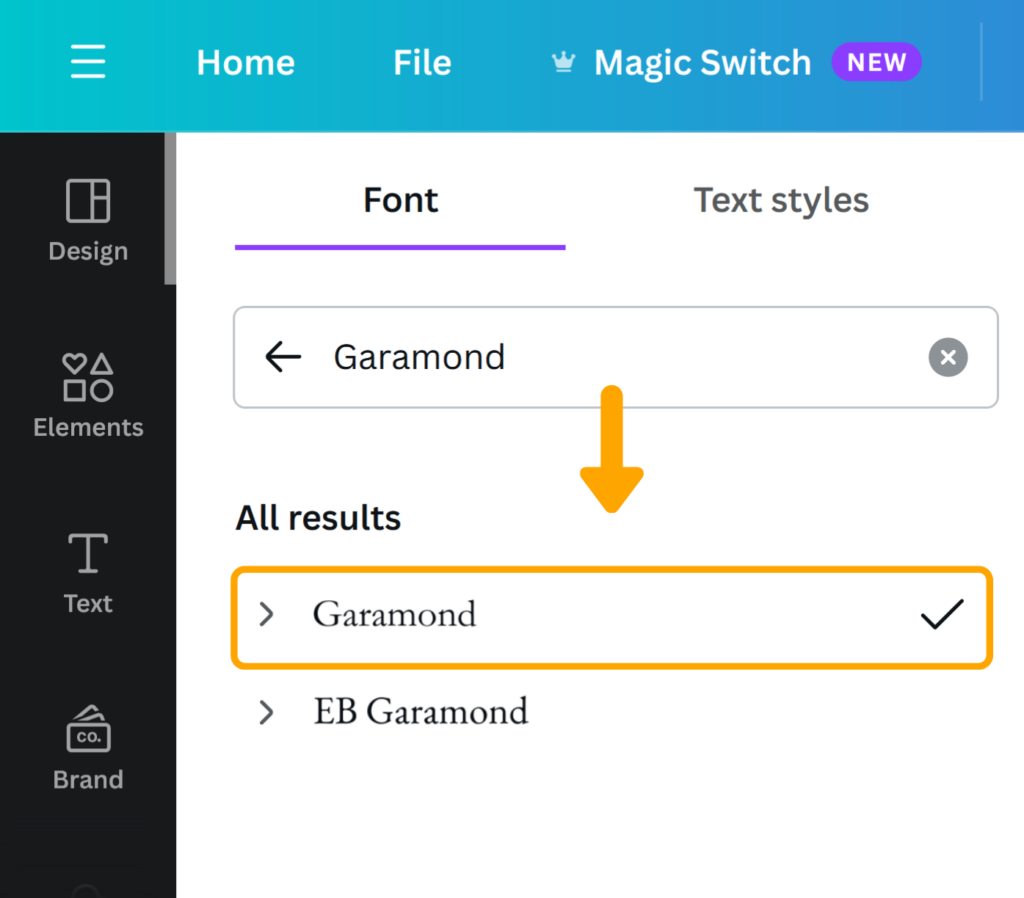
However, if you are looking for a similar yet unique font, Canva does offer a number of alternative fonts that are similar to Garamond in style.
Best Fonts Like Garamond in Canva
1. Avenir
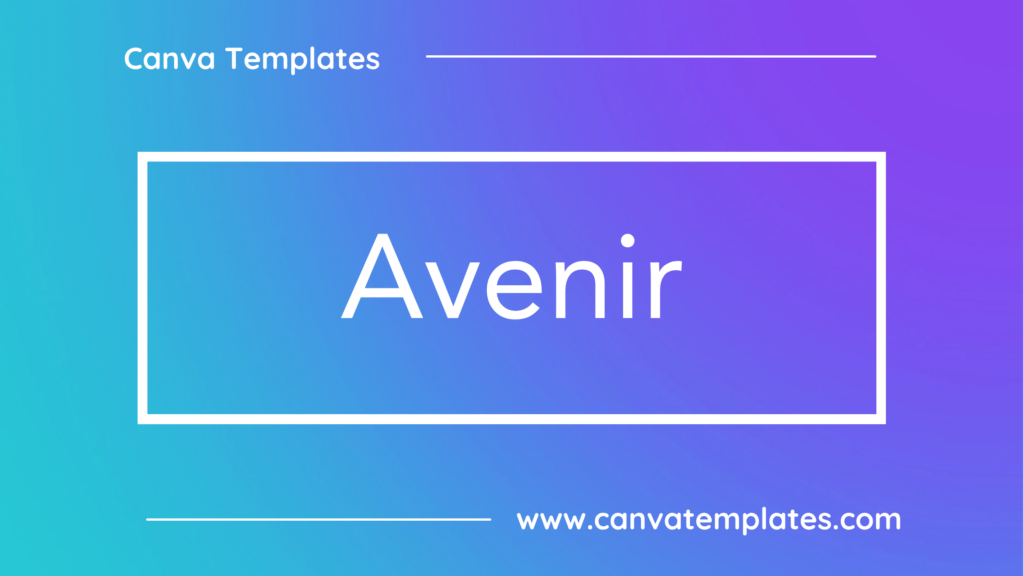
Why it’s a good alternative: Avenir is a sophisticated alternative to Garamond, featuring a clean and modern design that offers a refined, timeless appearance that complements Garamond’s classical elegance and legibility.
2. Proxima Nova
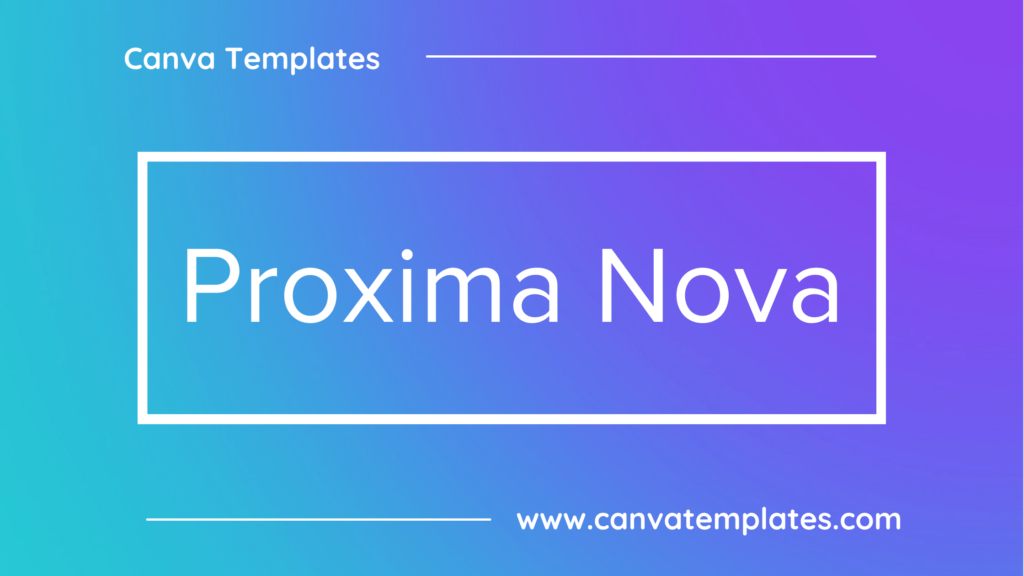
Why it’s a good alternative: Proxima Nova combines versatility and legibility, making it a practical choice to replace Garamond with a contemporary and adaptable design that maintains clarity while introducing a modern twist.
3. Raleway
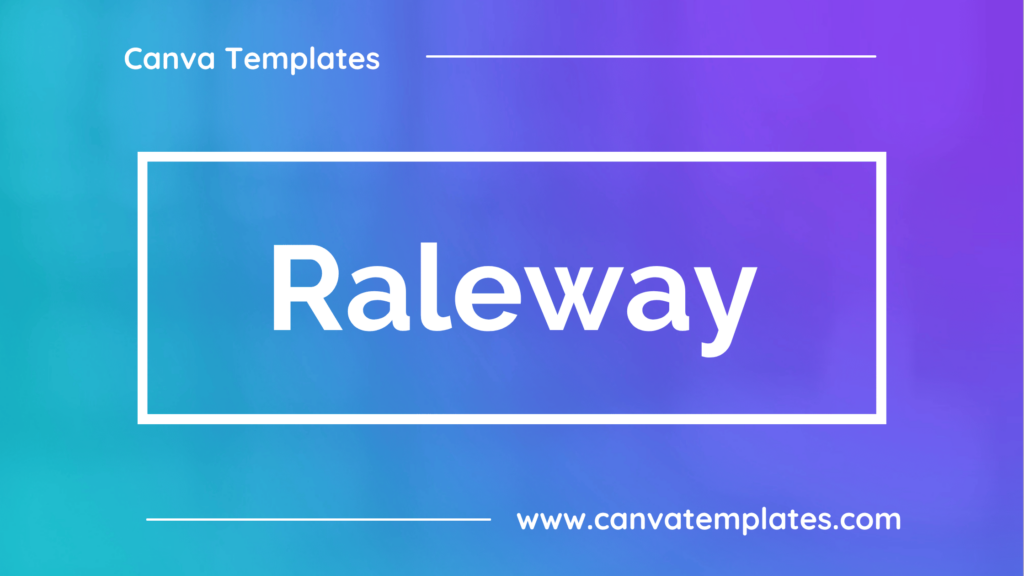
Why it’s a good alternative: Raleway’s high-contrast letterforms provide a distinctive alternative, adding sophistication and modernity while retaining the readability characteristic of Garamond.
4. Open Sans
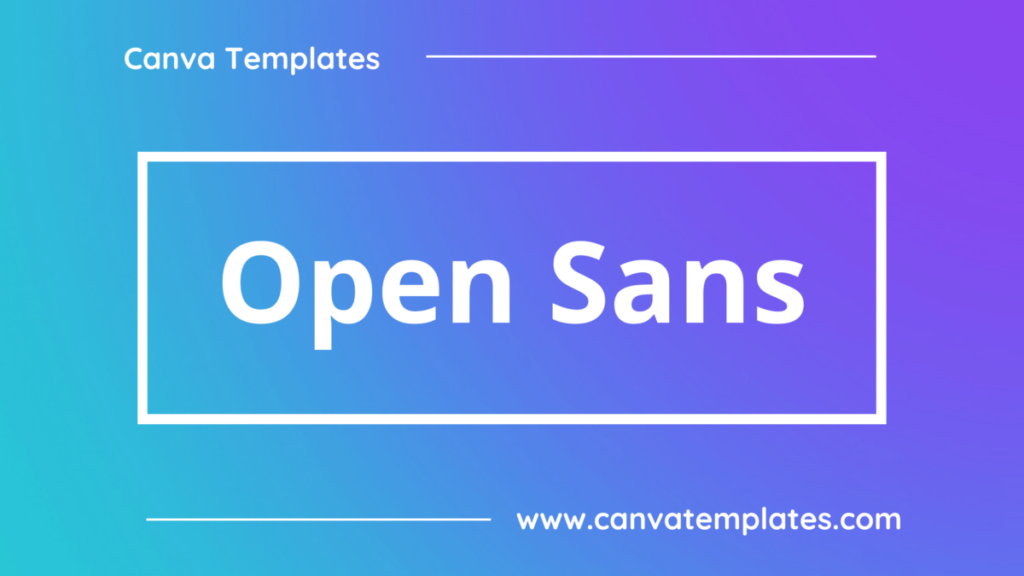
Why it’s a good alternative: Open Sans is a simpler and more approachable option, emphasizing readability and a modern look, which differs from Garamond’s more traditional and intricate style.
5. Lato
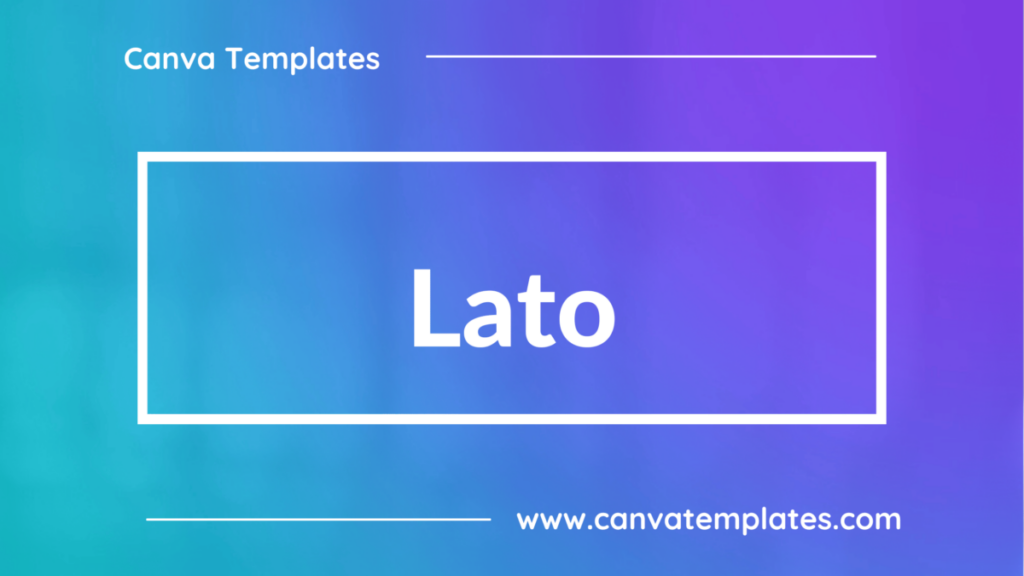
Why it’s a good alternative: Lato’s rounded letterforms create a softer and friendlier alternative, offering a warmer and more inviting appearance compared to Garamond.
6. Montserrat
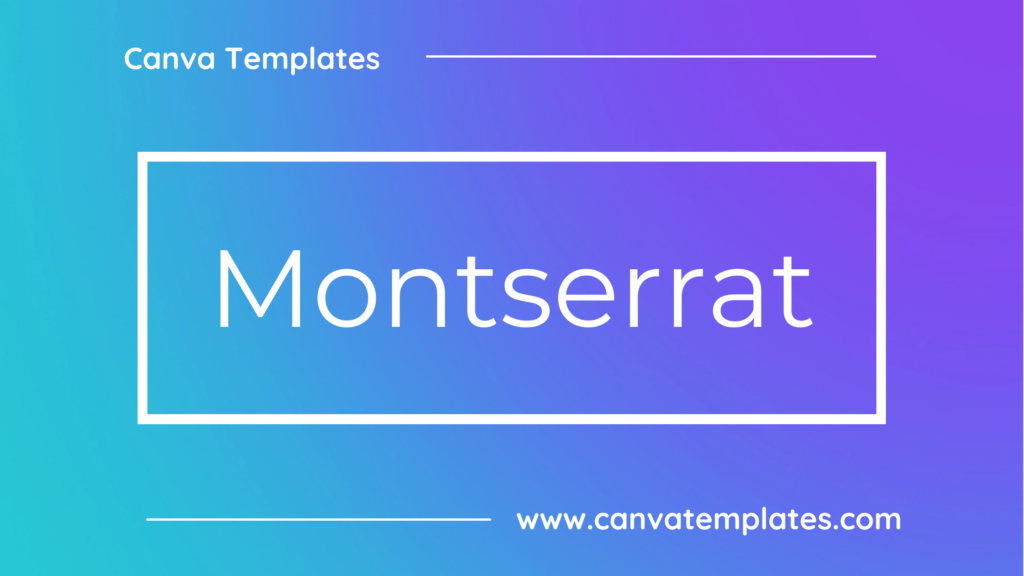
Why it’s a good alternative: Montserrat’s geometric and streamlined design offers a sleek and modern replacement for Garamond, particularly suitable for minimalistic and clean design projects.
7. Roboto
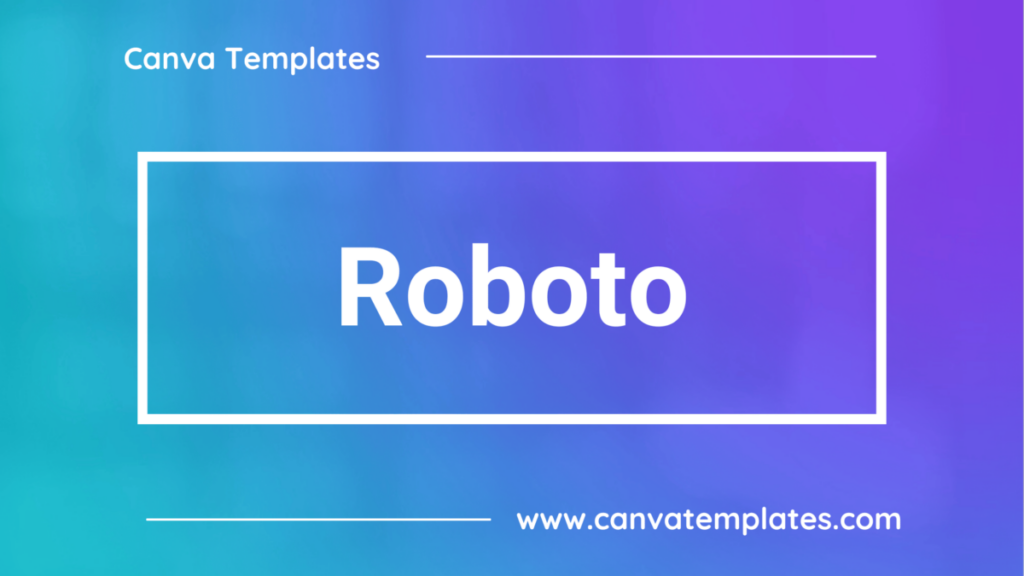
Why it’s a good alternative: Roboto’s versatility and legibility make it a functional alternative to Garamond, adapting well to various design contexts while maintaining clarity and a contemporary look.
8. PT Sans
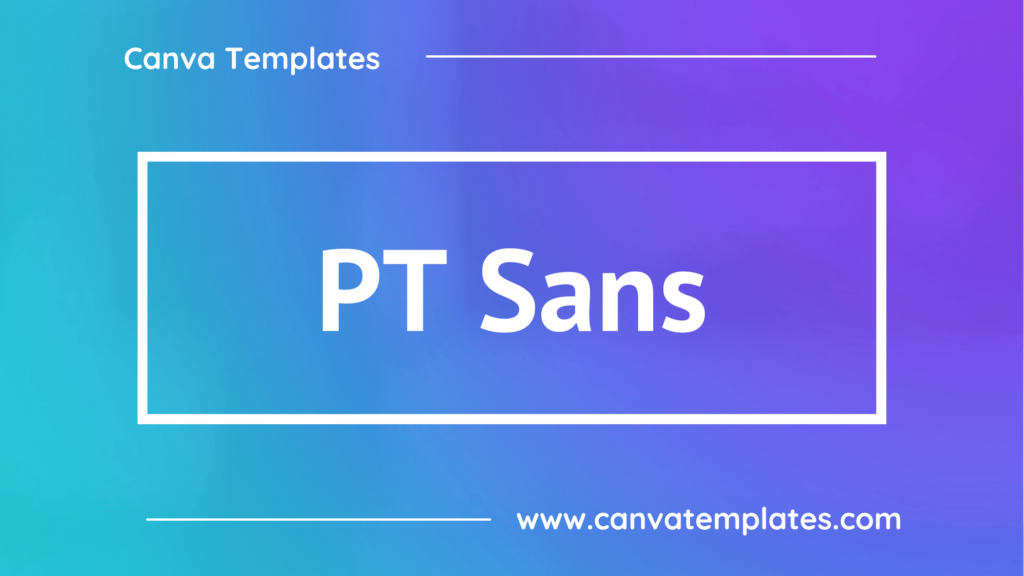
Why it’s a good alternative: PT Sans provides a straightforward and highly readable option, prioritizing legibility over Garamond’s more ornate and traditional nature.
9. Quicksand
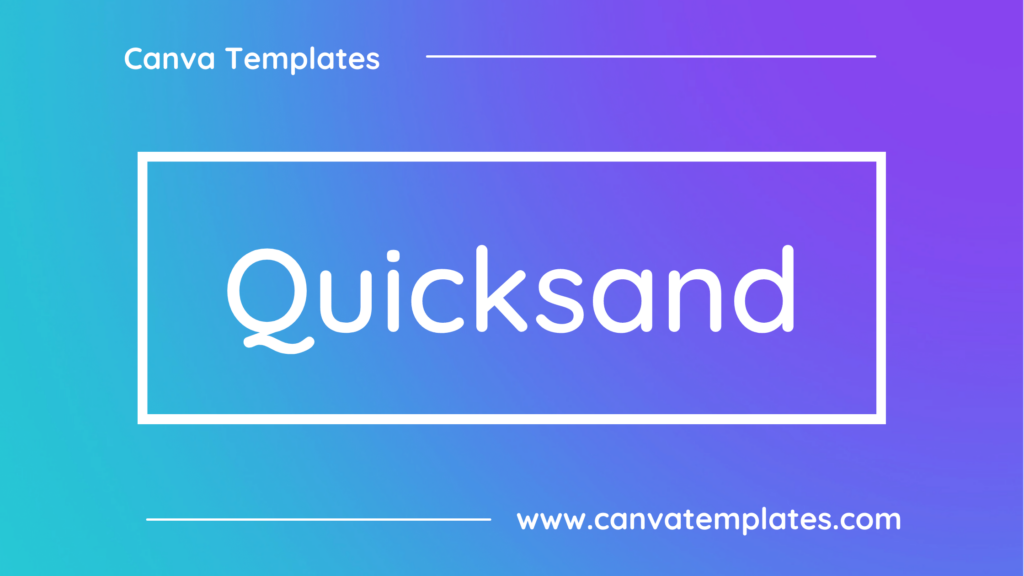
Why it’s a good alternative: Quicksand’s rounded and playful letterforms offer a unique and modern alternative to Garamond, conveying a creative and casual vibe.
10. Oswald
Why it’s a good alternative: Oswald’s bold and condensed design serves as a striking alternative to Garamond, making a bold statement with a more modern and impactful appearance.